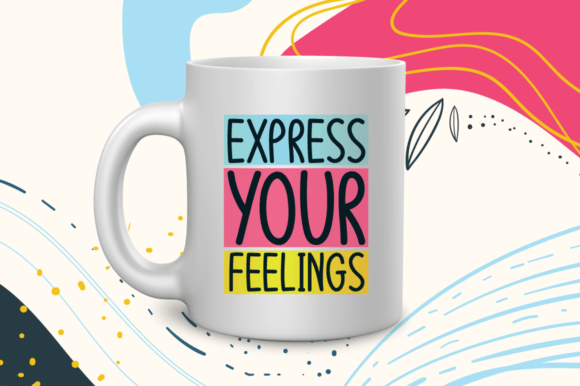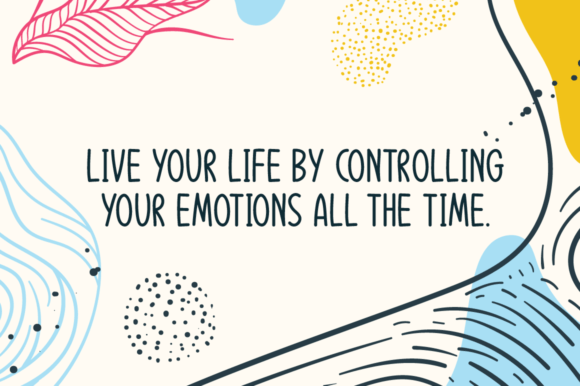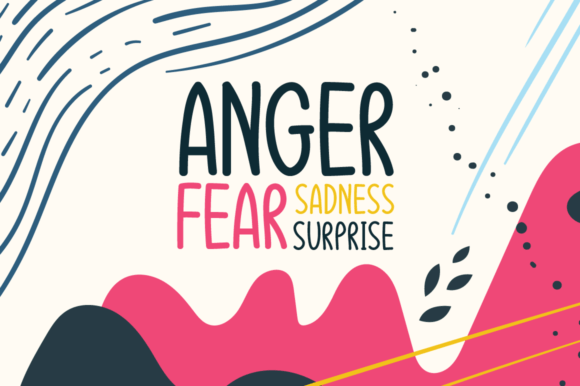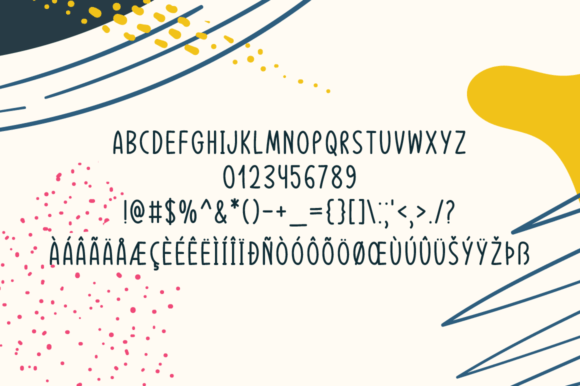
Unlocking the Power of Emotional Expression: A Cute and Simple Lettered Handwritten Font
Are you tired of using the same old fonts for your creative projects? Do you want to add a touch of personality and emotion to your designs? Look no further than the Emotional Expression font, a cute and simple lettered handwritten font that is sure to make your projects stand out.
What is Emotional Expression Font?
Emotional Expression font is a beautifully crafted handwritten font that exudes warmth and friendliness. Its simple and elegant design makes it perfect for a wide range of projects, from digital designs to print materials. Whether you’re a designer, crafter, or DIY enthusiast, this font is sure to become a staple in your creative toolkit.
Key Features of Emotional Expression Font
- Cute and Simple Design: The Emotional Expression font features a cute and simple design that is both elegant and playful.
- Handwritten Style: The font’s handwritten style gives it a personal and emotional touch, making it perfect for projects that require a human touch.
- Highly Versatile: The font can be used for a wide range of projects, from digital designs to print materials, and can be easily paired with other fonts to create stunning combinations.
- Easy to Read: The font is highly legible, making it perfect for use in body text, headings, and titles.
How to Use Emotional Expression Font in Your Projects
The Emotional Expression font can be used in a variety of projects, including:
- Digital Designs: Use the font in your digital designs, such as social media graphics, blog posts, and website headers.
- Print Materials: Use the font in your print materials, such as brochures, flyers, and business cards.
- Crafting Projects: Use the font in your crafting projects, such as card making, scrapbooking, and journaling.
- Branding and Identity: Use the font in your branding and identity projects, such as logos, letterheads, and packaging.
Tips for Pairing Emotional Expression Font with Other Fonts
Pairing the Emotional Expression font with other fonts can create stunning combinations that add depth and interest to your designs. Here are some tips for pairing the font with other fonts:
- Pair with Sans-Serif Fonts: Pair the Emotional Expression font with sans-serif fonts, such as Arial or Helvetica, to create a clean and modern look.
- Pair with Script Fonts: Pair the Emotional Expression font with script fonts, such as Pacifico or Great Vibes, to create a elegant and sophisticated look.
- Pair with Bold Fonts: Pair the Emotional Expression font with bold fonts, such as Impact or Arial Black, to create a dramatic and eye-catching look.
- The Emotional Expression font is a cute and simple lettered handwritten font.
- The font is highly versatile and can be used for a wide range of projects.
- The font can be paired with other fonts to create stunning combinations.
- The font is perfect for designers, crafters, and DIY enthusiasts.